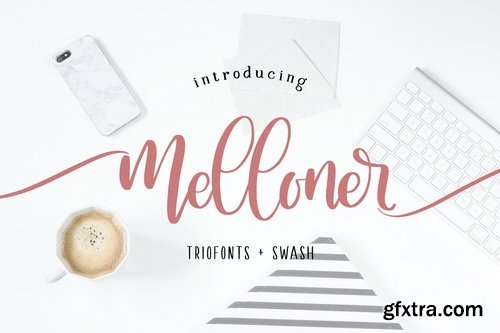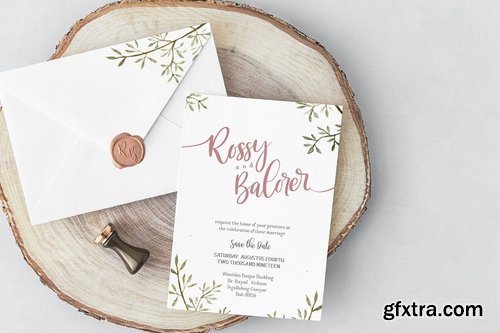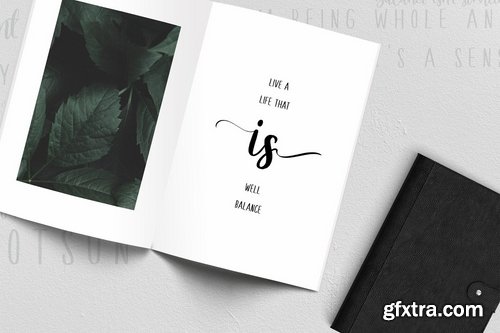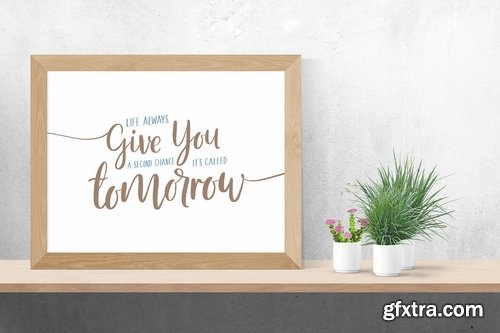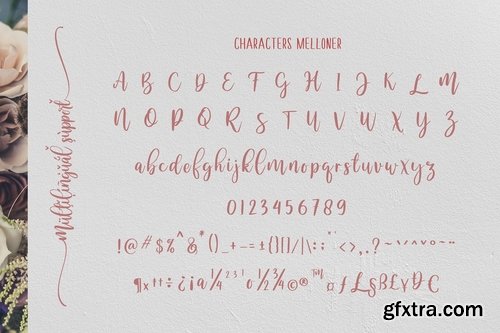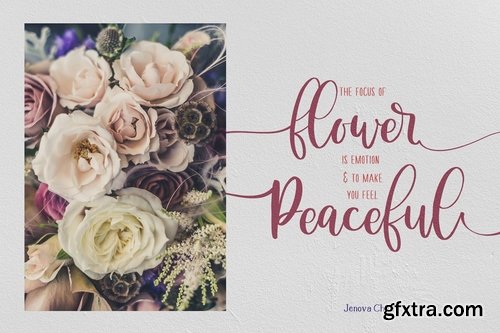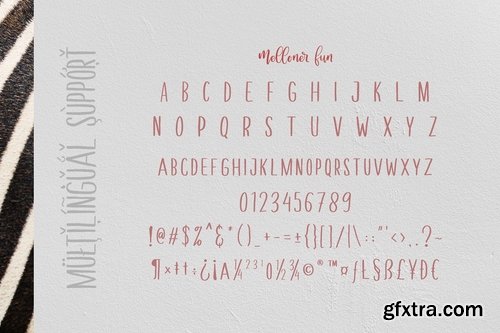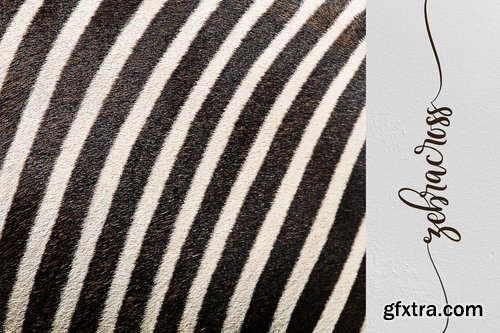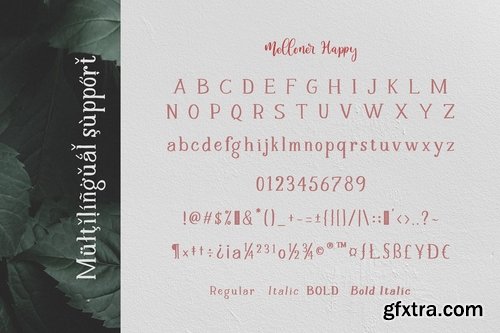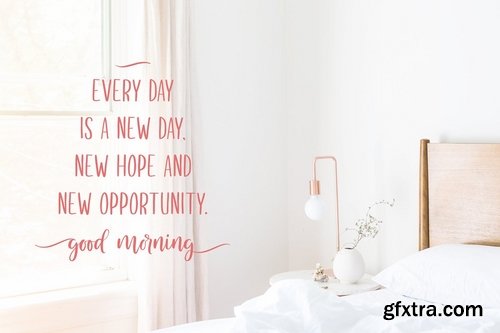
Present the new and charming Melloner Trio font plus Swash. It is suitable for additional fonts collection because it can be used for any type of design. Melloner has a beautiful script font and is very easy to use, with simple and unique characters.
It is very interesting to use melloner yourself or in combination with Melloner fun and melloner Happy which has a handwritten character with a brush. Melloner Fun is a handwritten font with a relaxed and unique sans serif style, while Melloner Happy has a slightly more formal serif style, plus a unique swash and lots of choices to enhance your letter design. So you get everything you need to make your lettering design. Features : Character Set A-Z Numerals & Punctuations (OpenType Standard) Accents (Multilingual characters) Swash Script Sans Serif serif